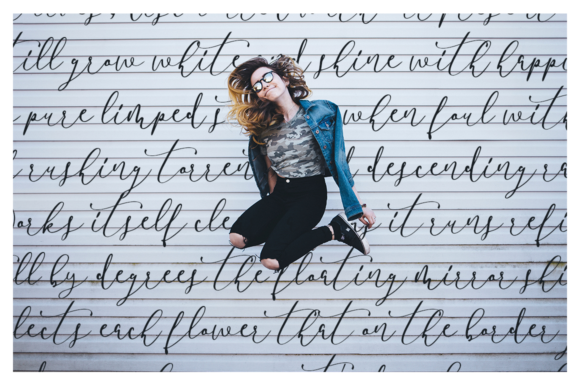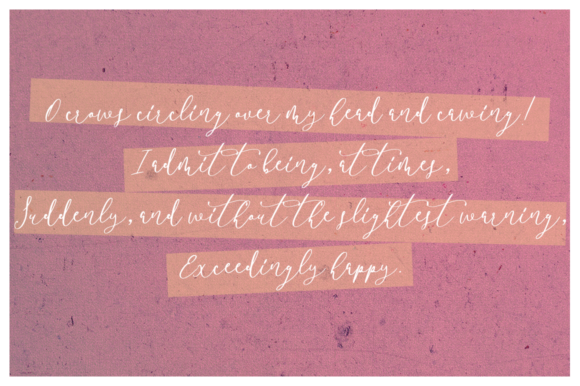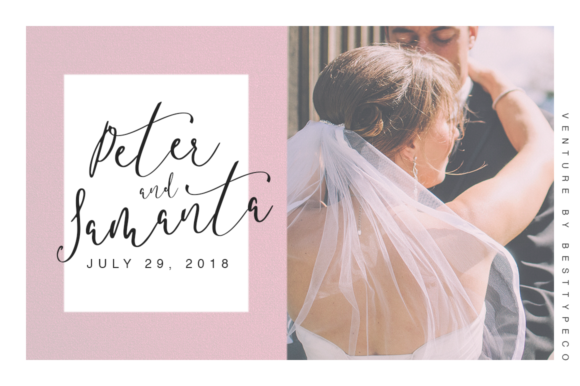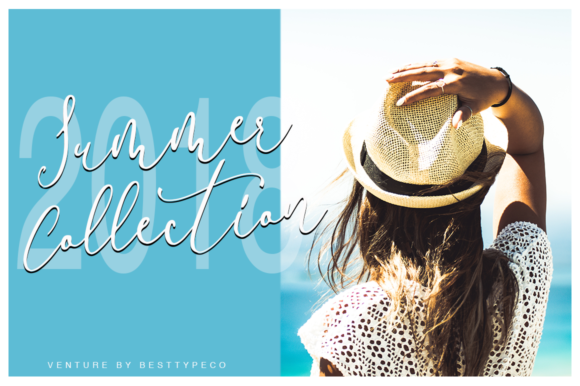
About Venture Font
Venture is a relaxed and timeless handwritten font. Get inspired by its delicate style and use it to create gorgeous wedding invitations, beautiful stationary art, eye-catching social media posts, and much more!